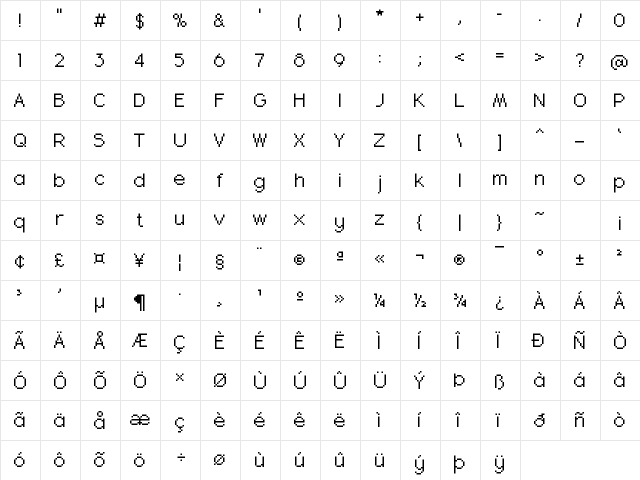
Quadrunde Medium
Design Context for Quadrunde Typeface
Quadrunde takes a measured approach to typography — its balanced proportions and neutral character make it a reliable workhorse for both digital and print work.
Pro Tip: Pair Quadrunde with a font of contrasting weight or personality to build a more expressive typographic hierarchy.